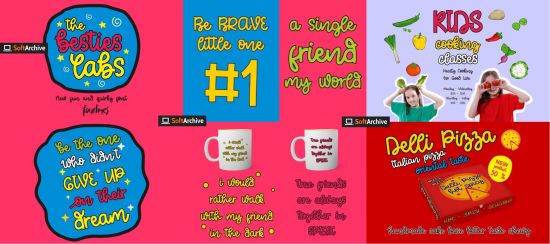
DesignOptimal - The Besties Labs Font
The Besties Labs is a cool and balanced handwritten font. Clean and a little bit quirky, this font is the perfect fit for all of your logos, branding, social media, and crafty DIY projects.